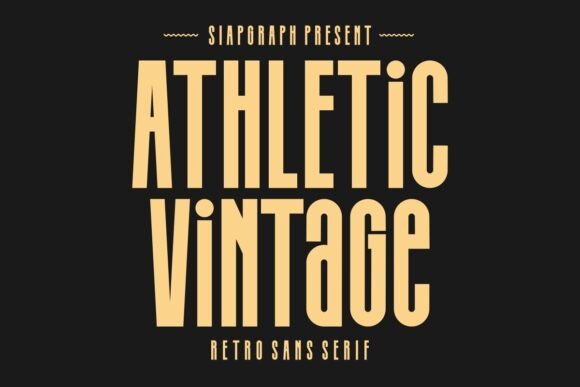
The Designer’s Delight: Athletic Vintage Font
Have you ever been in the middle of a design project, and suddenly, it all comes down to finding that perfect font? I recall a particularly stressful Christmas-themed project where I was tasked with creating a festive poster for a client’s holiday promotion. The catch? It had to be elegant, modern, and convey a sense of nostalgia. That’s when I stumbled upon the Athletic Vintage font, and it instantly became my design savior!
First Impressions: A Love at First Sight
Athletic Vintage is a clean and elegant retro sans serif font that exudes a perfect blend of modern style and Christmas spirit. Its sleek design makes it an excellent choice for creating standout quotes, posters, apparel mockups, and merchandise like t-shirts, mugs, and tote bags.
- ✨ Clean and Elegant Design: Athletic Vintage boasts a sophisticated look that’s perfect for both festive and everyday projects.
- ✅ Versatility: This font works seamlessly for social media content, posters, apparel, and merchandise, adding a stylish and timeless feel to your designs.
- 🎉 Festive yet Modern: The subtle touch of Christmas spirit makes it ideal for holiday-themed projects without being overly traditional.
While Athletic Vintage is an excellent font, there are a few minor considerations to keep in mind:
- ⚠️ Glyphs and OpenType Features: Some users might find the glyphs and OpenType features a bit limited compared to other fonts. However, what it offers works perfectly for most design needs.
- 🤔 Pairing with Other Fonts: Due to its sleek and modern design, it might require some experimentation to find the perfect pairing font for headings and body text.
Athletic Vintage was inspired by the classic sports typography of the early 20th century, blended with a modern twist. The designer aimed to create a font that captures the essence of athleticism and elegance, perfect for designs that require a touch of sophistication and nostalgia.
Q: What type of projects is Athletic Vintage best suited for?
A: Athletic Vintage is versatile and works well for festive and everyday projects, including posters, apparel mockups, social media content, and merchandise.
Q: Does Athletic Vintage support OpenType features?
A: Yes, Athletic Vintage supports OpenType features, including glyphs and stylistic alternates, which can enhance your designs.